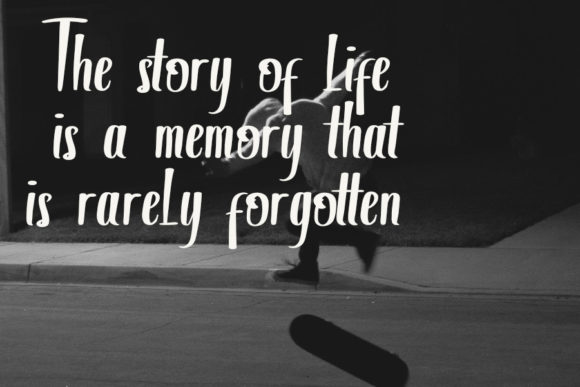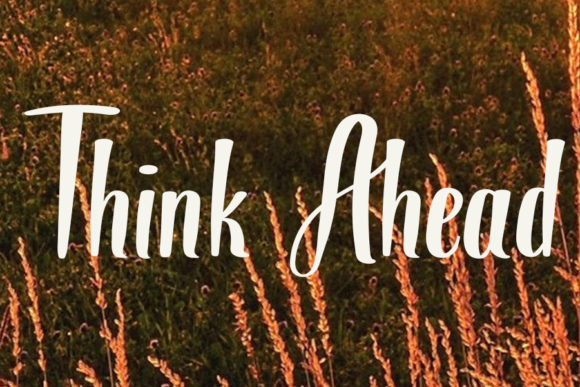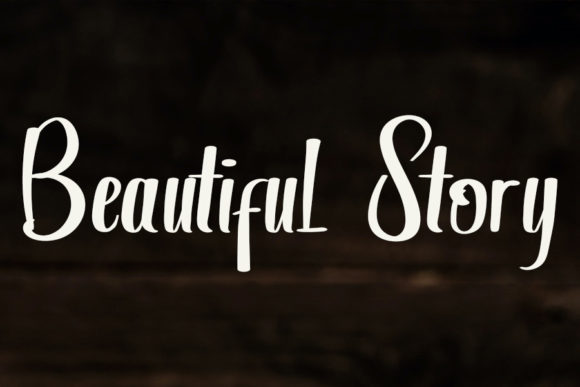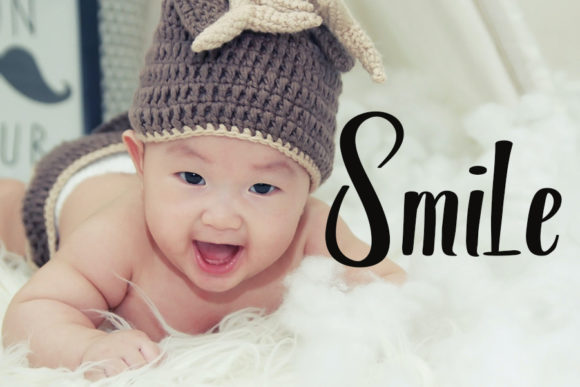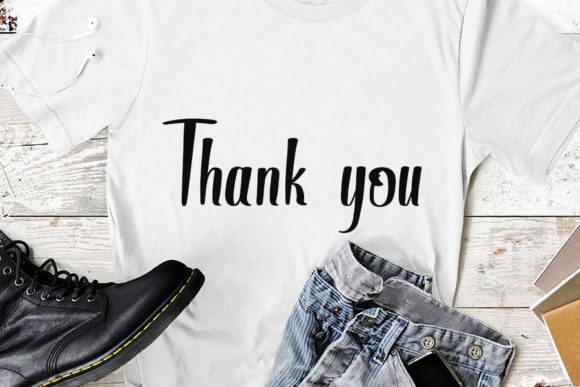
Introduction to Signature Story Font
Have you ever stared at a blank canvas, pencil in hand, waiting for that perfect idea to strike? The blank page can be intimidating, but the right design resource can make all the difference. For designers and creatives, finding the perfect font can be a game-changer. That’s where the Signature Story Font comes in – a beautiful, handwritten font that’s sure to bring your projects to life.
With its elegant, calligraphic influences and modern twist, the Signature Story Font is a must-have for any creative project. Whether you’re working on a personal branding project or designing a wedding invitation, this font is sure to add a touch of sophistication and style. Plus, with a transparent background, you can easily layer it with other design elements to create a high-quality, visually appealing design.
Key Features of Signature Story Font
- Unique, handcrafted design elements for a creative project: This font features intricate details and patterns, making it perfect for designers looking for a one-of-a-kind design resource.
- High-quality, transparent background: The font’s transparent background allows for seamless integration with any design, giving you the flexibility to create stunning visual effects.
- Large character set: The font includes a large character set, including uppercase and lowercase letters, numbers, and punctuation marks, making it suitable for various design applications.
- High-resolution design: The font is designed at a high resolution of 300 DPI, ensuring that your designs look crisp and clear, even when scaled up or printed.
- Perfect for creative projects: Signature Story Font is ideal for designers working on creative projects, such as logos, branding materials, and digital art, where a unique and eye-catching font is essential.
Honest Review: Signature Story Font
I’ve had the chance to work with many design resources, but the Signature Story Font has truly stood out. Its unique style and high quality make it an excellent addition to any creative project.
- ✨ The font’s transparent background allows for seamless blending with other design elements.
- ✨ The font’s high quality is evident in its crisp lines and smooth curves.
- ⚠️ The font’s limited character set may not be suitable for longer text-based projects.
- ⚠️ Some users may find the font’s unique style too experimental or trendy.
Overall, I’m impressed with the Signature Story Font. Its versatility and high quality make it a valuable resource for designers working on creative projects. While it may not be suitable for every project, it’s definitely worth considering for those looking to add a unique touch to their designs.
Signature Story Font is a high-quality design resource ideal for creative projects that require a unique touch. This versatile font features a transparent background, making it perfect for overlaying text on images or using as a standalone design element.
Tips for Getting the Most Out of Signature Story Font
To get the most out of Signature Story Font, experiment with different font sizes, colors, and styles to create a unique look. You can also pair the font with other design elements, such as images or graphics, to create a visually appealing design.